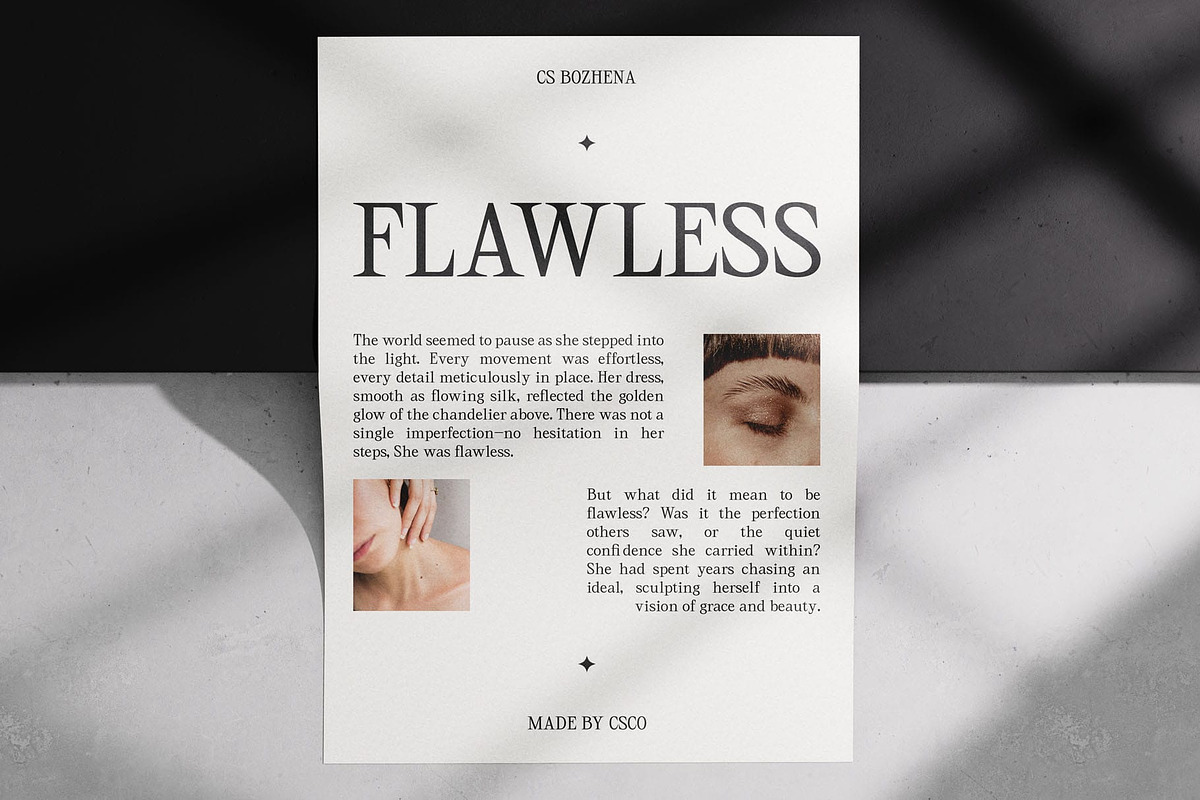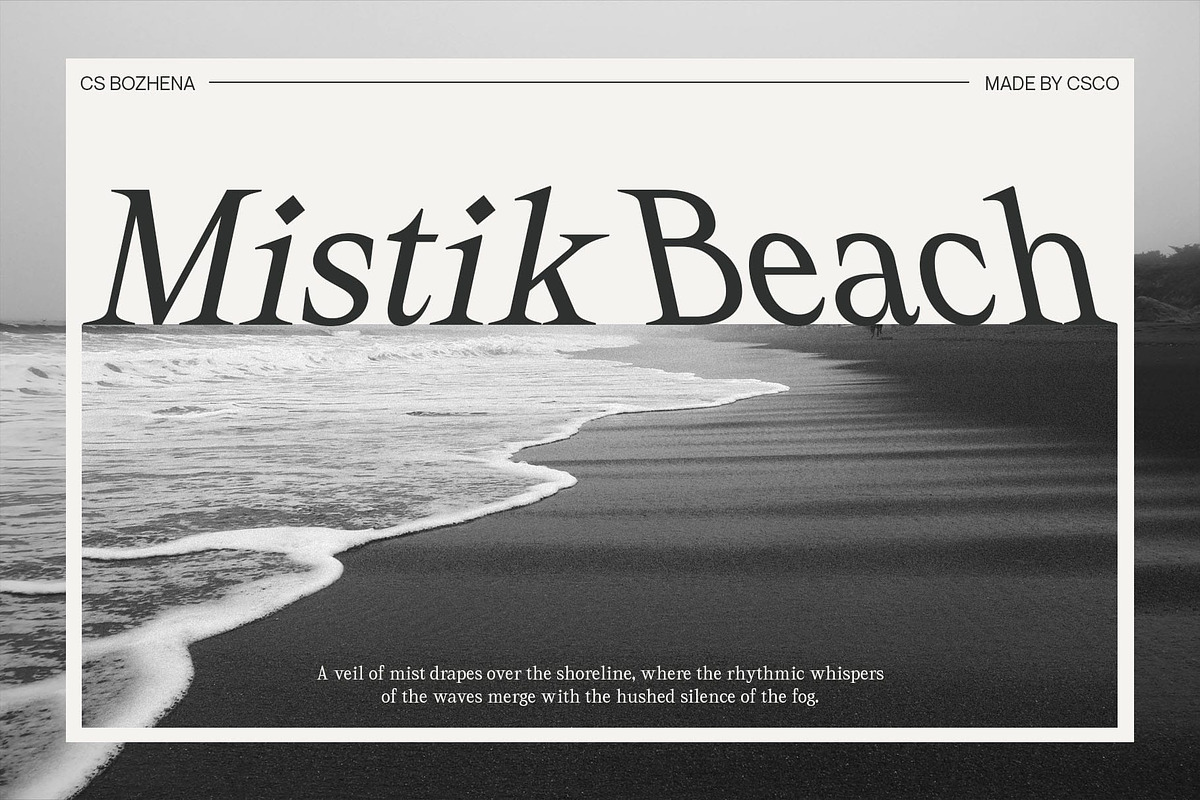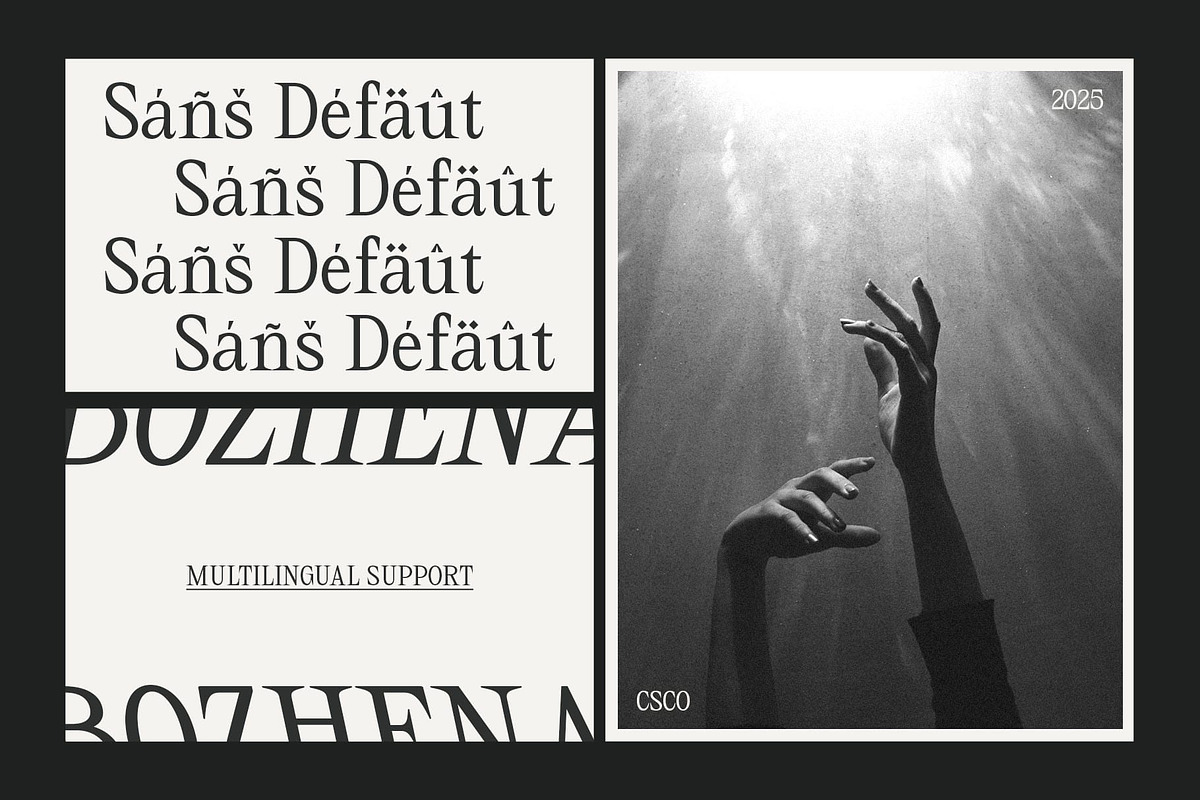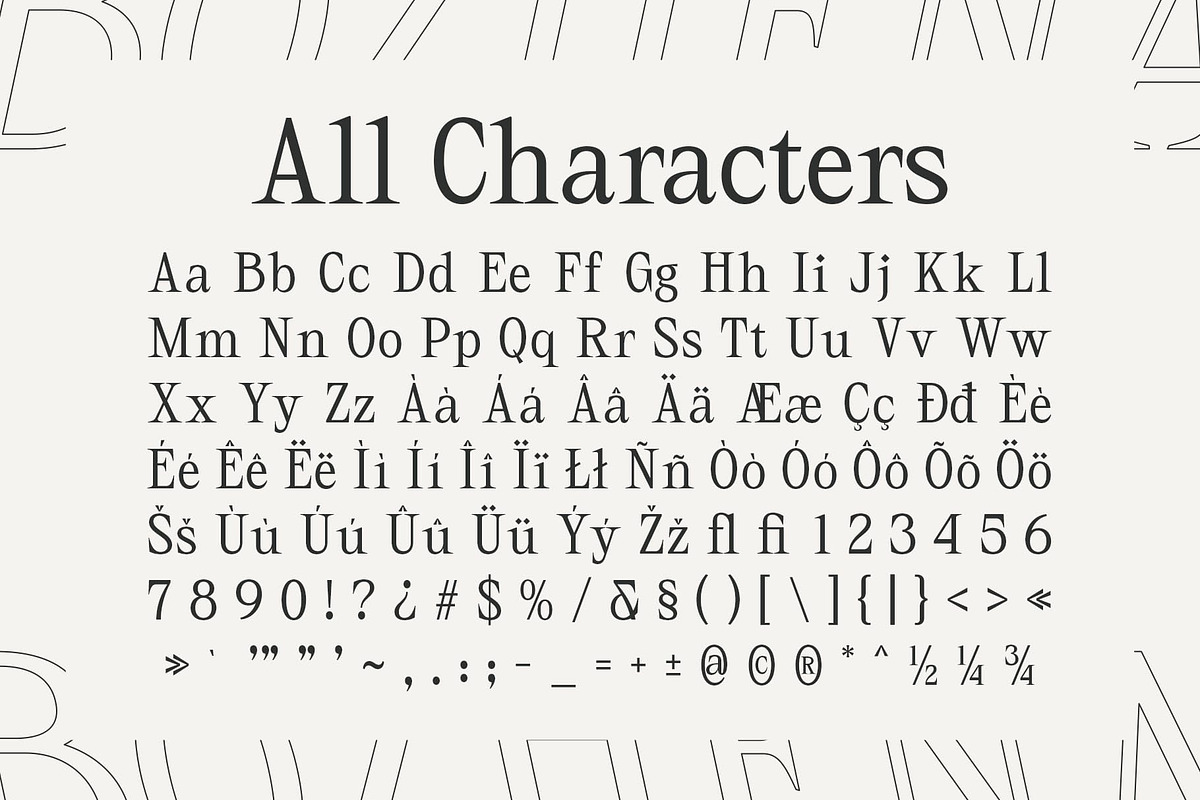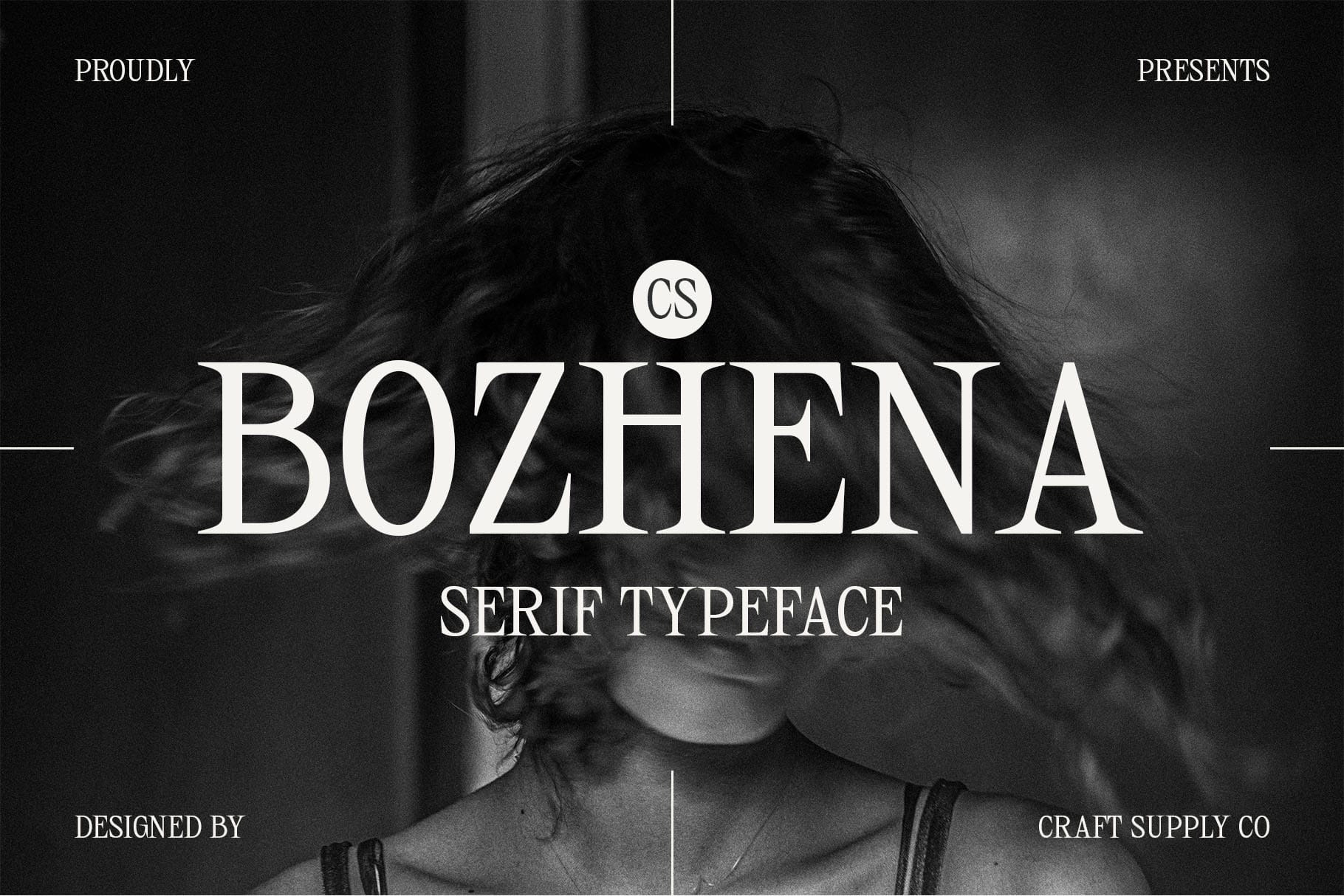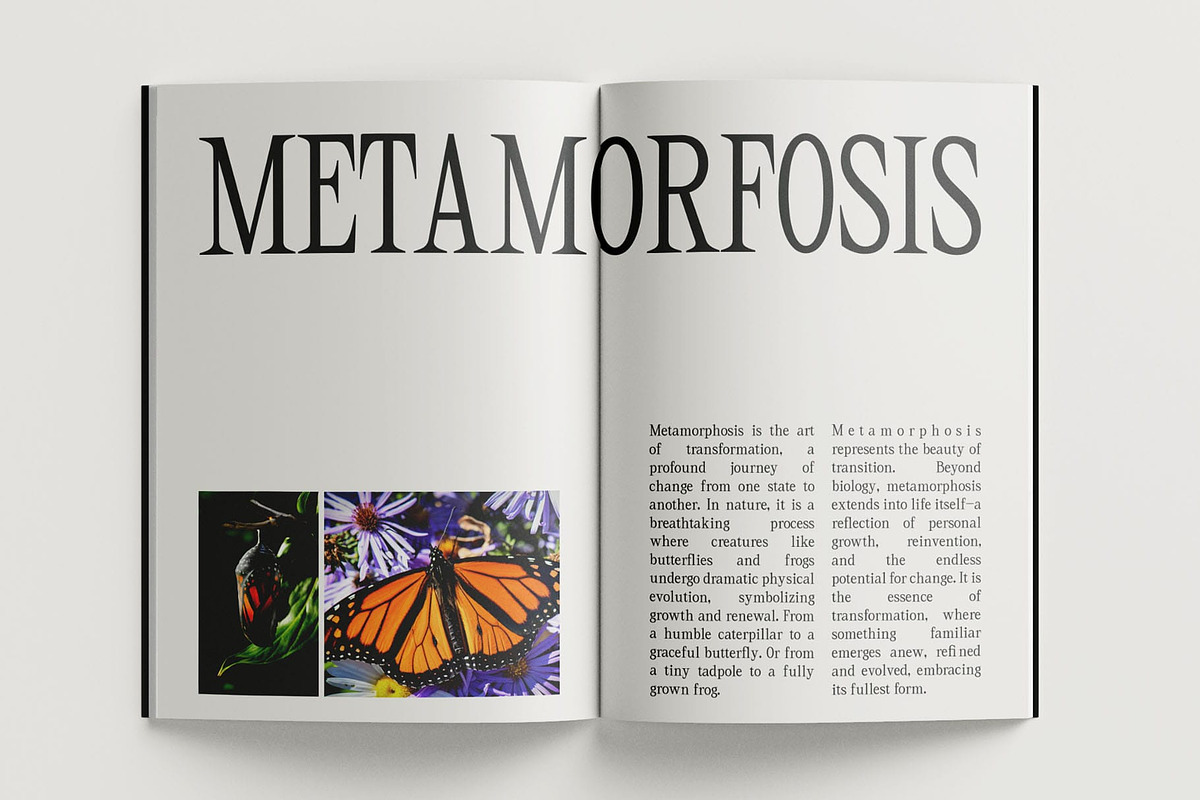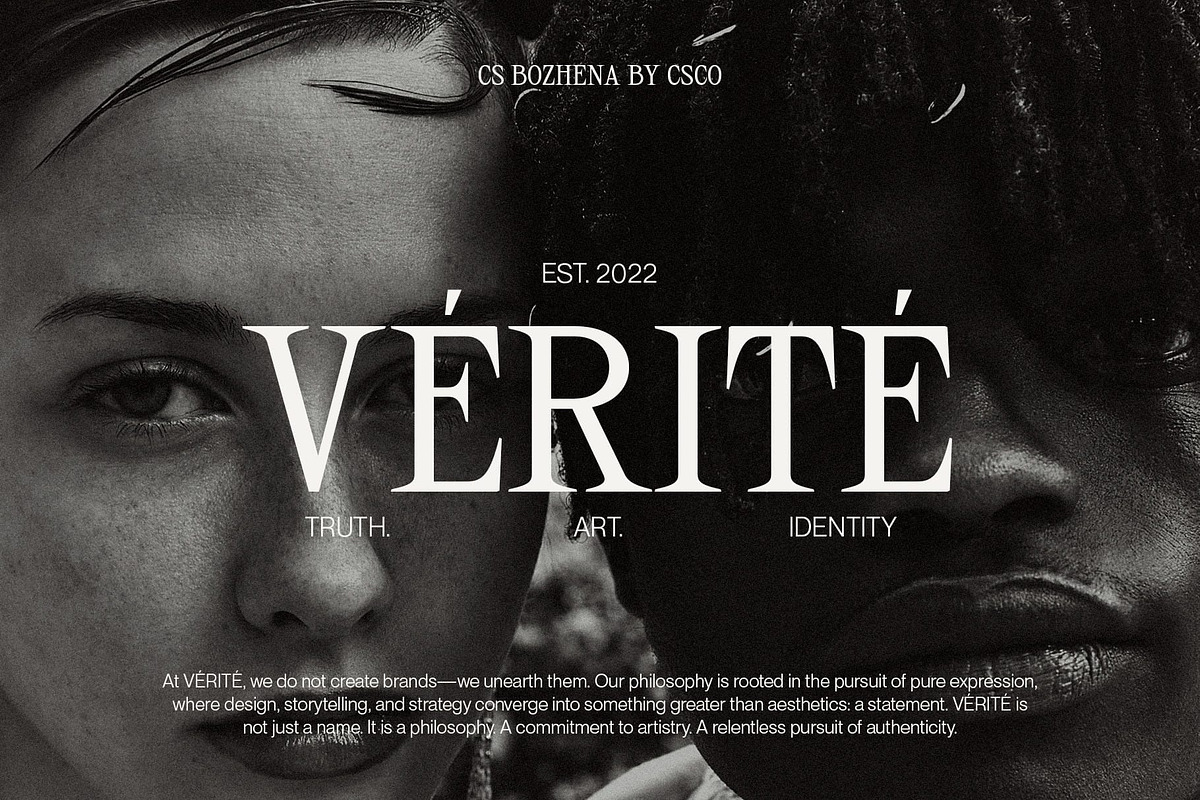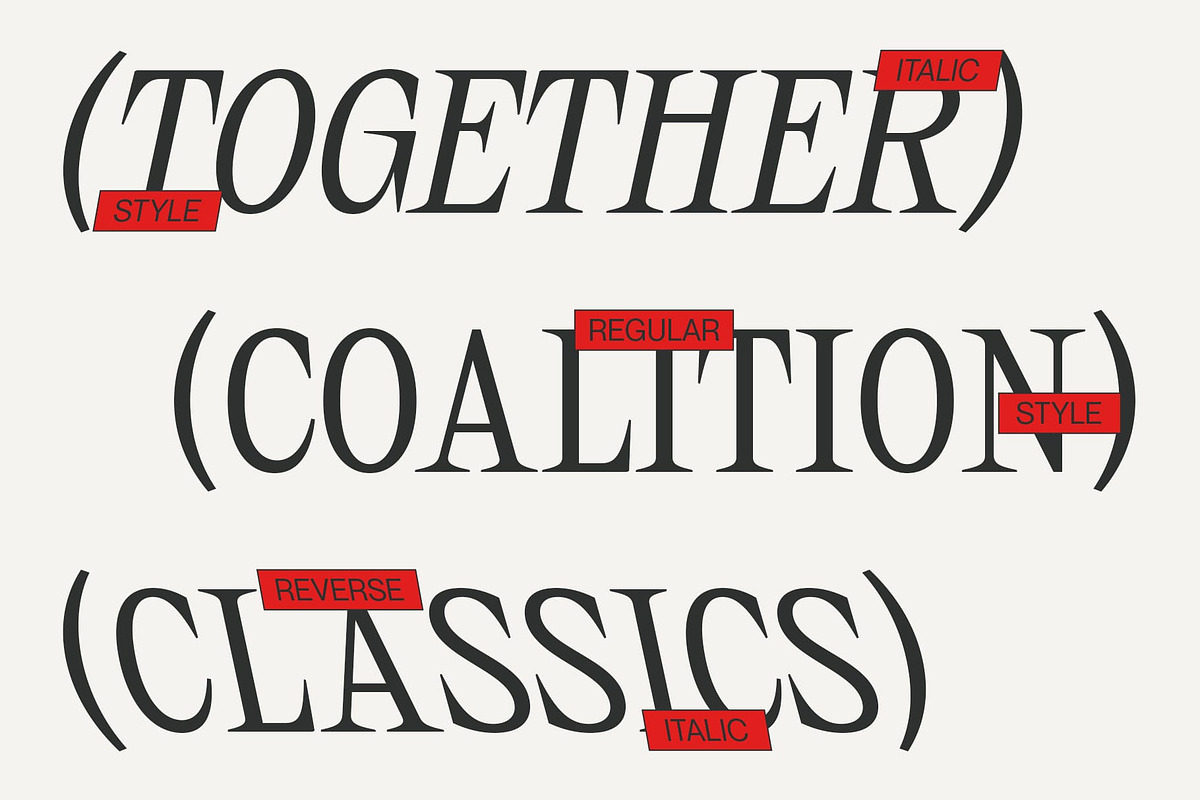
CS Bozhena – Contemporary Font
CS Bozhena – Contemporary Font: Modern Elegance with Timeless Appeal
Contemporary Serif with a Classic Touch CS Bozhena is a modern classic serif font that masterfully combines contemporary design with timeless sophistication. With sharp serifs, balanced proportions, and refined letterforms, this typeface achieves a polished and authoritative aesthetic. Whether used in editorial layouts, corporate branding, or luxury publications, CS Bozhena ensures a strong and confident visual presence.
Clean and Professional Look Designed for clarity and readability, CS Bozhena features well-defined letterforms and smooth contrast, making it an excellent choice for business presentations, magazines, and high-end branding. The font’s structured appearance provides a sense of professionalism, making it highly suitable for corporate identities, financial reports, and elegant advertisements.
Sophisticated and Stylish Appeal CS Bozhena’s graceful curves, subtle contrast, and sleek details contribute to its refined and stylish character. The font’s sophisticated nature makes it ideal for luxury fashion brands, high-end product packaging, and premium marketing materials. Whether in print or digital media, this font delivers an exclusive and upscale feel, elevating any design to a new level of class.
Versatile for Various Applications Beyond its elegant aesthetic, CS Bonzhena is a highly versatile typeface that adapts to a wide range of design needs. It works seamlessly in logos, websites, book covers, invitations, and editorial layouts, ensuring a cohesive and distinguished visual identity.